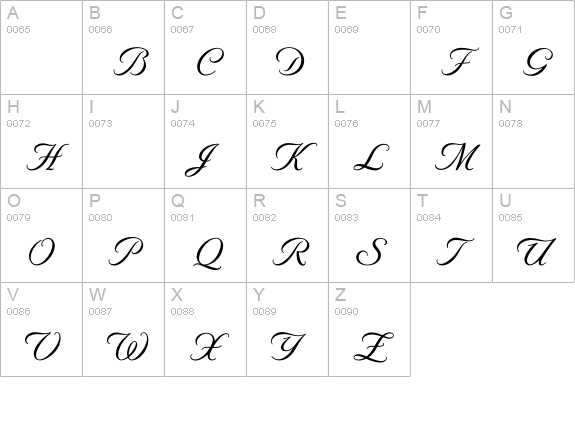
ByronMedium Font Details
ByronMedium is a timeless and versatile font that strikes the perfect balance between elegance and readability. With its clean lines and classic proportions, this font is ideal for a wide range of design projects, from branding and packaging to editorial and web design. The ByronMedium font is available for free download at FontsMarket.com, making it accessible to designers and creatives looking to add a touch of sophistication to their work without breaking the bank. Whether you're creating a sleek logo, designing a stylish website, or crafting eye-catching marketing materials, ByronMedium is sure to elevate your designs and leave a lasting impression on your audience.